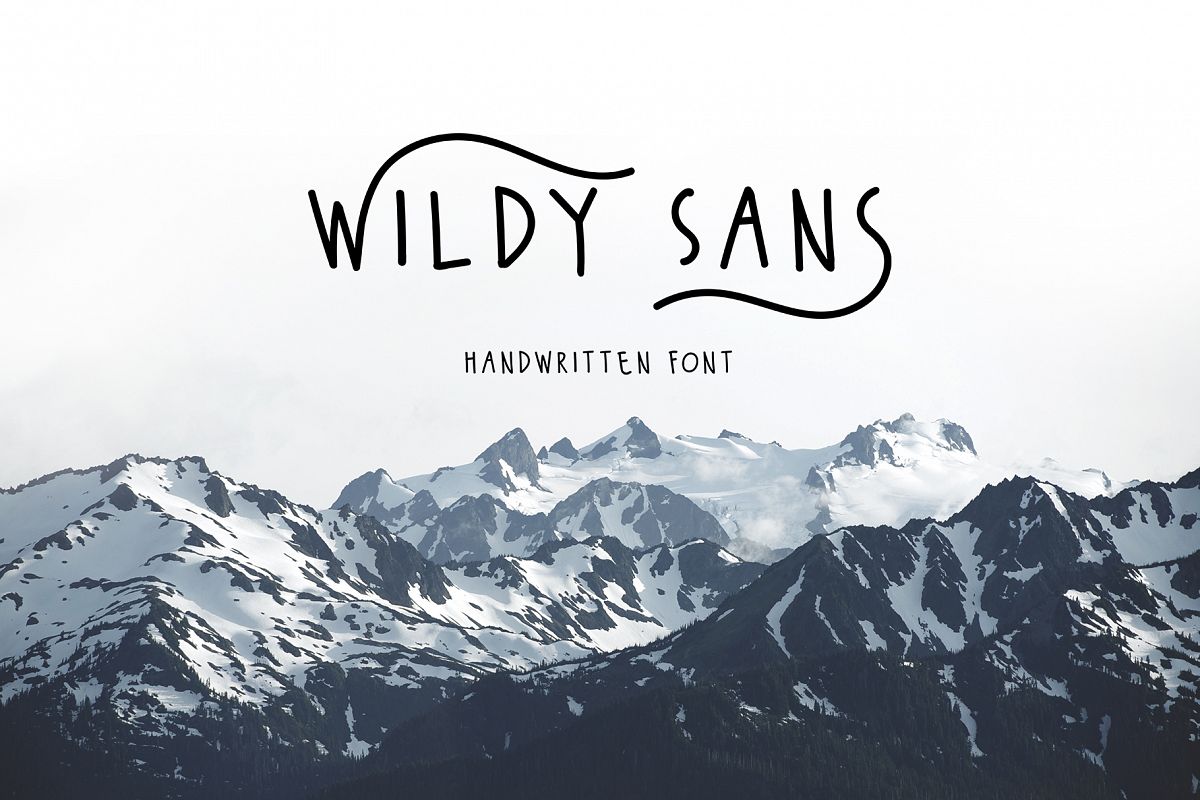
Wildy Sans
WildySans-Regular
Wildy Sans is a handdrawn sans serif typeface, they have a verry handwritten character with beautifull swashes. Wildy Sans is perfect for creating quotes and any typography design.